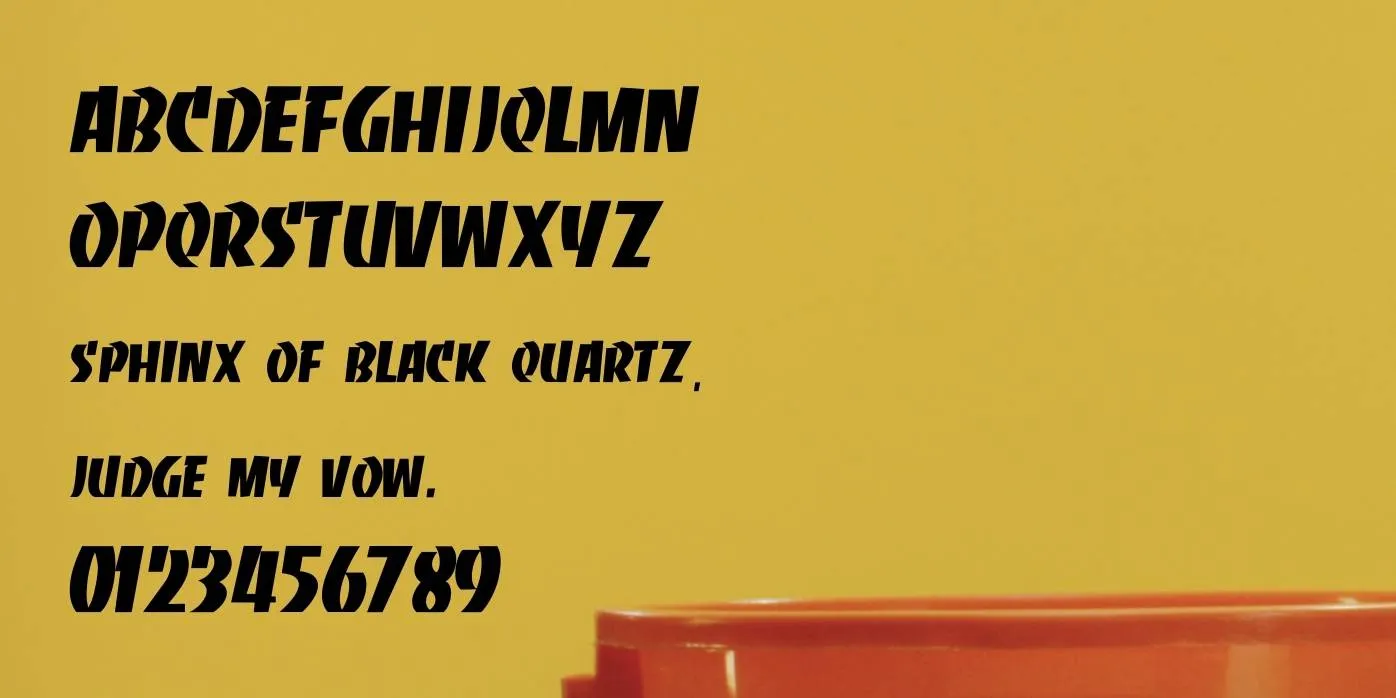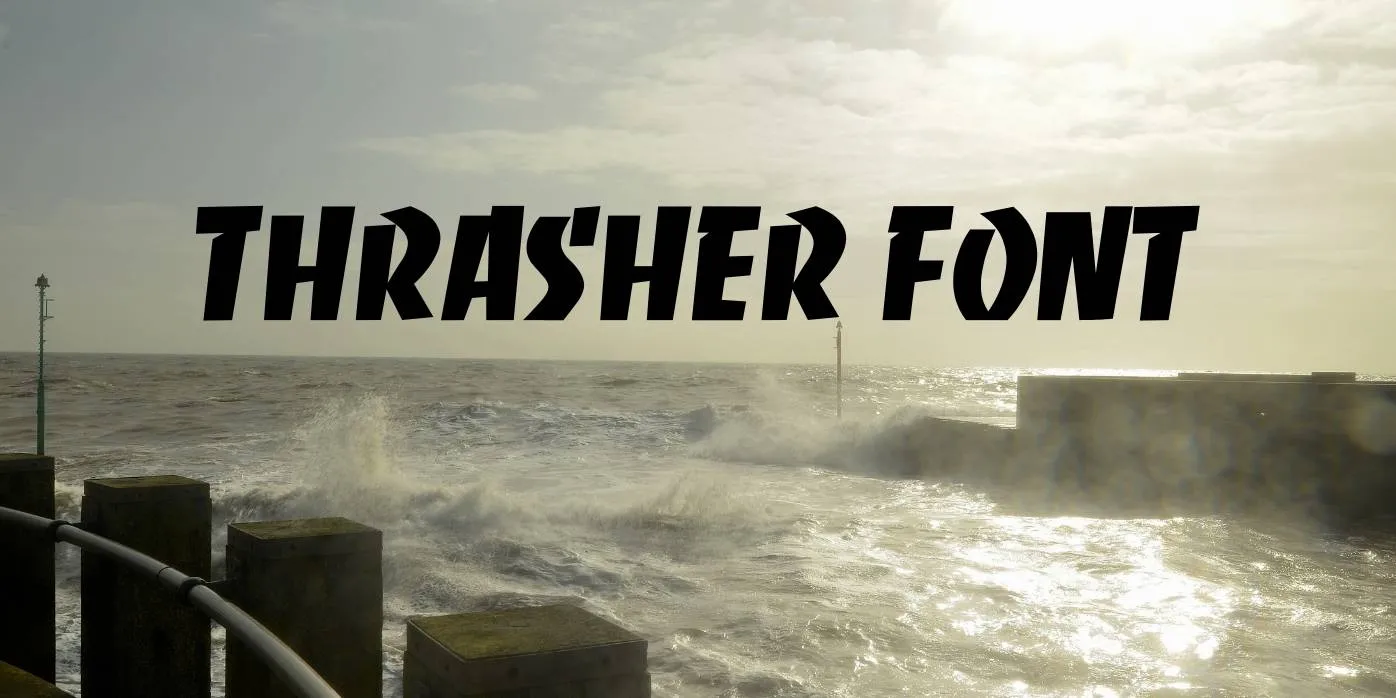
Thrasher Font
Thrasher Font was designed by a famous designer Roger Excoffon. It was designed in 1951. It becomes popular after usage in a skateboarding magazine. Different magazines companies used this stunning typeface for their different article.
These articles are mostly related to Skateboarding and music. This font is used for designing logos of magazines companies. This font family impresses everyone and to increase its uniqueness, many designers use this typeface in their different projects. In industries, this typeface is frequently used for interviews and different types of news.
Because of its unique and stylish features, this font family is used everywhere all over the world. If you want to use its features you can get online tools easily. This is a very highly used font.